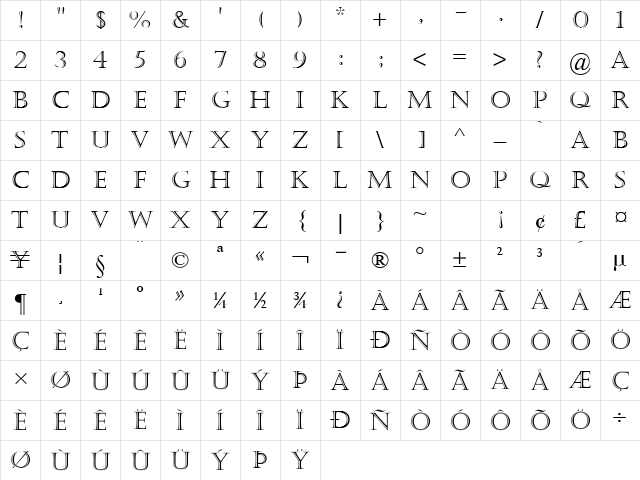
Castellar Regular
Design Context for Castellar
Castellar is a composed and adaptable typeface that performs quietly and consistently across a wide range of design contexts.